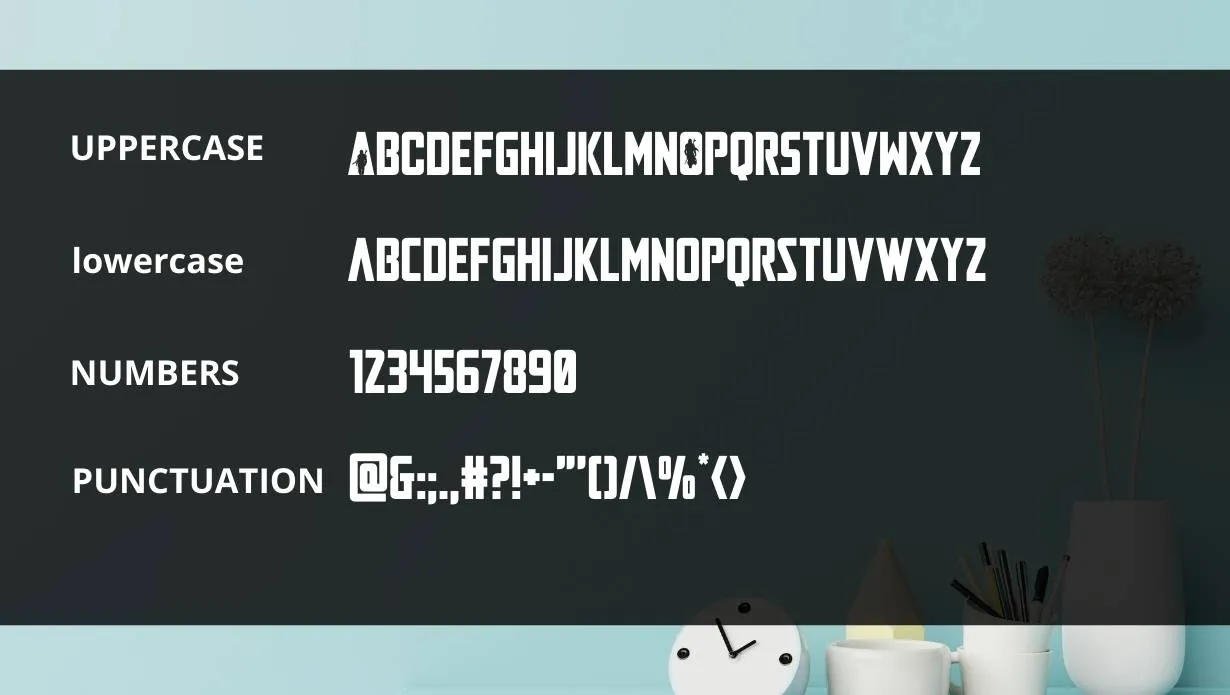
Mandalore font was created by Thomas W. Otto, who is also the creator of the popular Star Wars fonts Jedi and Sith. The Mandalore Typeface is available in both regular and bold weights.
This typeface was created specifically for the Star Wars franchise. It is based on the handwriting of George Lucas, the creator of the franchise. You can also try snickles font for your logos and other typography designs as well.